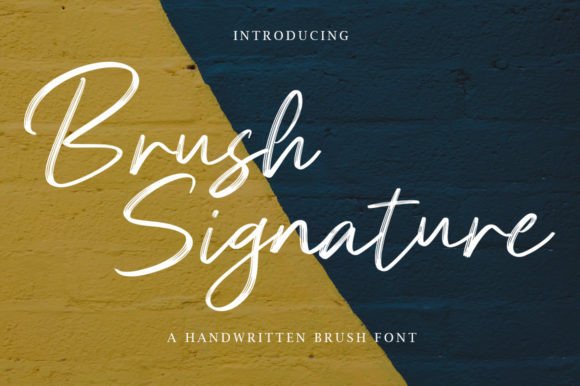
The Brush Signature Font: Elevate Your Designs with Elegance
Have you ever been in the middle of a design project, and suddenly, you’re stuck on finding the perfect font? I recall a recent experience where a client asked for a luxurious feel for their branding, and I was on a mission to find that ideal font. That’s when I stumbled upon the Brush Signature font, and it completely transformed my design. In this article, we’ll dive into the world of Brush Signature, exploring its features, uses, and what makes it a standout in the world of typography.
A Personal Encounter with Brush Signature
I was working on a branding project for a high-end fashion label, and the client was adamant about having a sophisticated, yet modern look. The challenge was finding a font that could convey this message without being too over-the-top. That’s when I discovered Brush Signature, a fashionable and elegant handwritten font that has a distinctive style with a modern touch. It’s perfect for adding a luxurious feel to designs, making it ideal for branding, logos, business cards, posters, invitations, greeting cards, news, product packaging, blog posters, or anything that needs a stylish accent.
An Honest Review of Brush Signature
What I Love About Brush Signature ✨
• 💫 Elegant and modern design that instantly elevates any project
• ✅ Highly versatile, suitable for a wide range of design applications
• 🌈 Beautifully crafted to add a touch of sophistication and luxury
• 📚 Extensive character set, including support for multiple languages
• ⚠️ Some users might find the font a bit too stylized for very formal projects
• 🤔 Limited availability of certain OpenType features in older software
The Backstory of Brush Signature
Brush Signature was crafted with the intention of bringing a touch of luxury and modernity to the world of handwritten fonts. Its designer aimed to create a versatile typeface that could be used across various platforms, from digital media to print. The result is a font that not only looks stunning but also offers flexibility and elegance.
Q: What makes Brush Signature unique?
A: Brush Signature stands out due to its elegant, modern design and versatility. It’s crafted to add a luxurious feel to any project, making it perfect for high-end branding and designs.
Q: Does Brush Signature support OpenType features?
A: Yes, Brush Signature supports various OpenType features, including stylistic alternates and glyphs. This allows for a high degree of customization, enabling designers to create unique and personalized text.
Q: Is Brush Signature difficult to read?
A: While Brush Signature is a decorative font, it’s designed to be legible. However, for very long texts or formal documents, a more traditional font might be more appropriate.